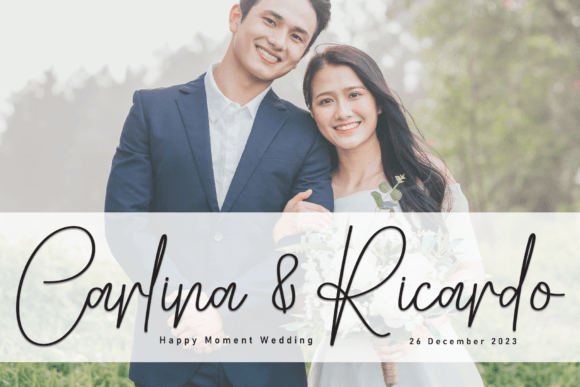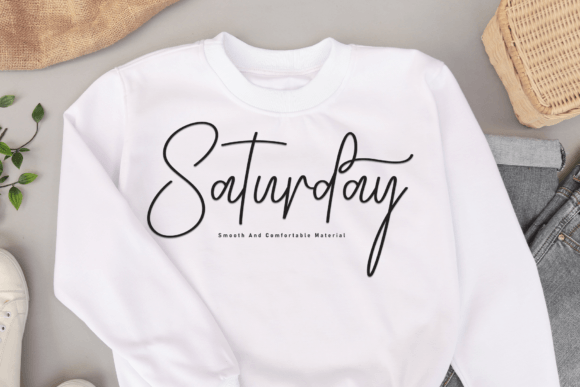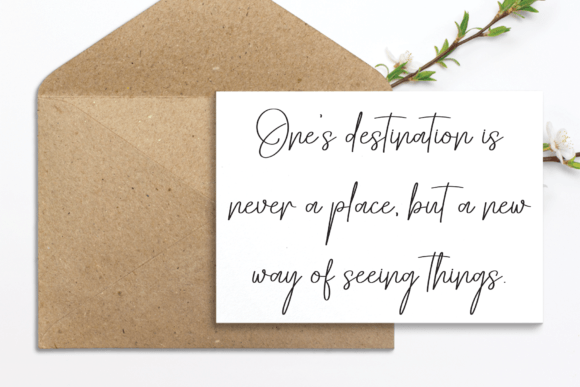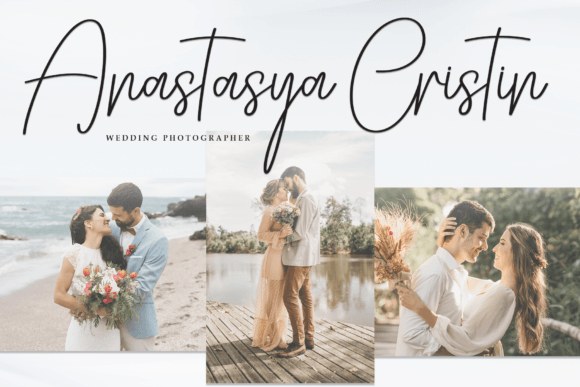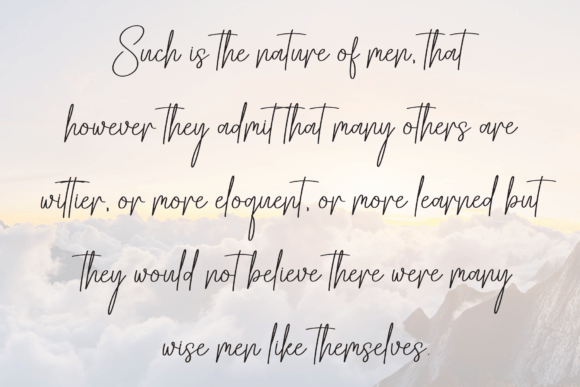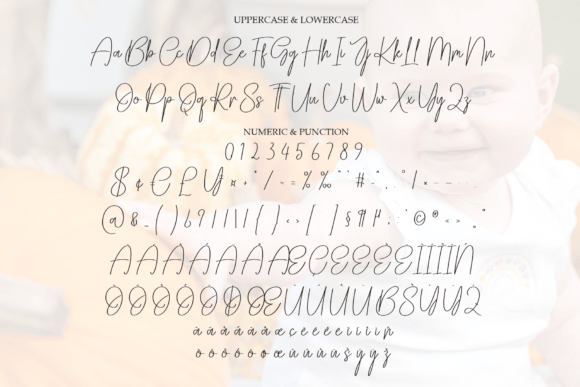
Baby Pumpkin Font: The Sweet and Friendly Handwritten Font for Your Designs
Are you a designer or crafter looking for a font that can add a touch of warmth and personality to your projects? Look no further than the Baby Pumpkin Font! This sweet and friendly handwritten font is perfect for a wide range of designs, from invitations and greeting cards to branding and packaging.
What Makes Baby Pumpkin Font So Special?
Baby Pumpkin Font is a unique and natural handwritten font that stands out from the crowd. Its distinctive style is reminiscent of a child’s handwriting, making it perfect for designs that require a personal and playful touch. The font’s irregularities and quirks give it a charming, homemade feel that’s sure to capture the hearts of your audience.
The versatility of Baby Pumpkin Font is one of its most attractive features. Its natural and unique style makes it incredibly fitting to a large pool of designs, from:
- Invitations and greeting cards: Add a personal touch to your special occasions with Baby Pumpkin Font.
- Branding and packaging: Use the font to create a unique and memorable brand identity.
- Stationery and journals: Add a playful touch to your stationery and journals.
- Signs and posters: Create eye-catching signs and posters with a personal touch.
- Digital products: Use Baby Pumpkin Font to create engaging digital products, such as printables and workbooks.
The Only Limit is Your Imagination!
As the font’s description says, “The only limit is your imagination!” With Baby Pumpkin Font, you can create a wide range of designs that reflect your personality and style. Whether you’re a designer, crafter, or DIY enthusiast, this font is sure to inspire you to create something truly special.
Why Choose Baby Pumpkin Font?
So why choose Baby Pumpkin Font over other fonts? Here are just a few reasons:
- Unique and distinctive style: Baby Pumpkin Font stands out from the crowd with its natural and unique handwritten style.
- Easy to read: Despite its irregularities, Baby Pumpkin Font is easy to read and understand.
- Versatile: The font can be used for a wide range of designs and projects.
- Personal touch: Baby Pumpkin Font adds a personal and playful touch to your designs.
Tips for Using Baby Pumpkin Font
Here are a few tips for using Baby Pumpkin Font in your designs:
- Pair it with other fonts: Experiment with pairing Baby Pumpkin Font with other fonts to create a unique and interesting contrast.
- Use it for headings and titles: Baby Pumpkin Font is perfect for headings and titles, where its playful and personal style can shine.
- Experiment with colors: Try using Baby Pumpkin Font with different colors and textures to add depth and interest to your designs.
In conclusion, Baby Pumpkin Font is a sweet and friendly handwritten font that’s perfect for designers and crafters looking to add a personal touch to their projects. Its unique and natural style makes it incredibly versatile, and its ease of use makes it accessible to everyone. So why not give Baby Pumpkin Font a try and see what amazing designs you can create?